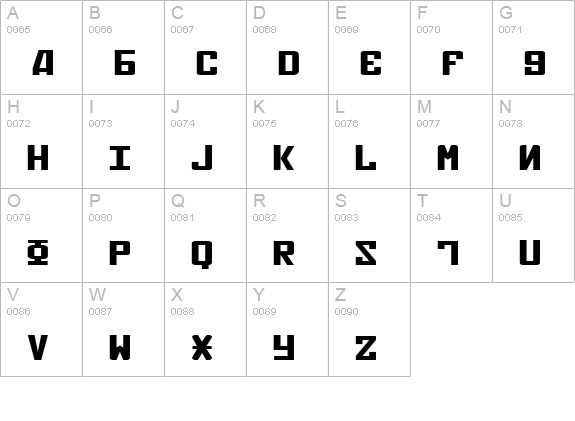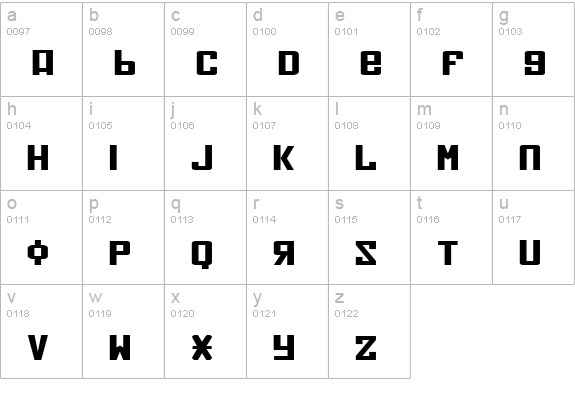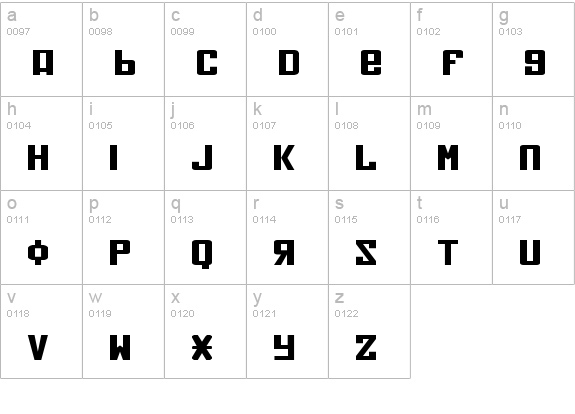
Soviet X-Expanded is a distinctive, extended-width variant in the Soviet typeface family \xE2\x80\x94 well suited to design and typography projects.
Introducing the Soviet X-Expanded font, a striking typeface that combines the boldness of Soviet design with a modern twist. This font is the perfect choice for those seeking a unique and powerful look for their designs. With its expanded letterforms and strong, geometric shapes, Soviet X-Expanded commands attention and creates a sense of authority. This font is not only visually captivating but also highly versatile, making it suitable for a wide range of projects. Whether you're designing a poster, logo, or website, Soviet X-Expanded will effortlessly elevate your work to new heights. Its clean lines and balanced proportions ensure legibility at any size, making it a practical choice for both print and digital applications. One of the most appealing aspects of Soviet X-Expanded is that it is available for free download at FontsMarket.com. This means that you can access this exceptional typeface without having to spend a dime. The generosity of this offer allows designers, artists, and creatives of all kinds to freely explore the potential of Soviet X-Expanded, without any barriers or limitations. FontsMarket.com is a reputable source for high-quality fonts, and their decision to offer Soviet X-Expanded for free reflects their commitment to supporting the creative community. By making this font freely available, they have made it accessible to a wider audience, ensuring that designers, regardless of their budget, can enjoy the benefits of this extraordinary typeface. So, if you're looking to make a bold statement with your designs, Soviet X-Expanded is the font you've been searching for. Its distinctive style, versatility, and the fact that it's freely available for download at FontsMarket.com, make it an unbeatable choice for any project. Don't miss out on the opportunity to elevate your designs with the power and sophistication of Soviet X-Expanded.